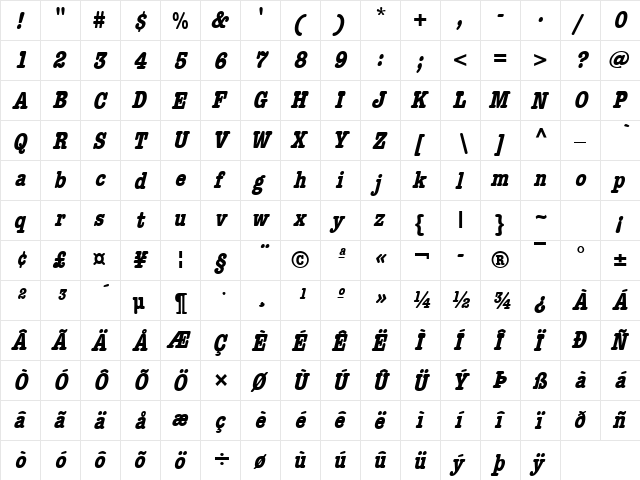
EditorCndn Bold Italic Font Preview
EditorCndn Bold Italic
Design Context for EditorCndn Typeface
EditorCndn is a composed and adaptable typeface that performs quietly and consistently across a wide range of design contexts. The slanted form adds forward momentum and visual energy. The heavy weight commands attention and anchors typographic hierarchies.